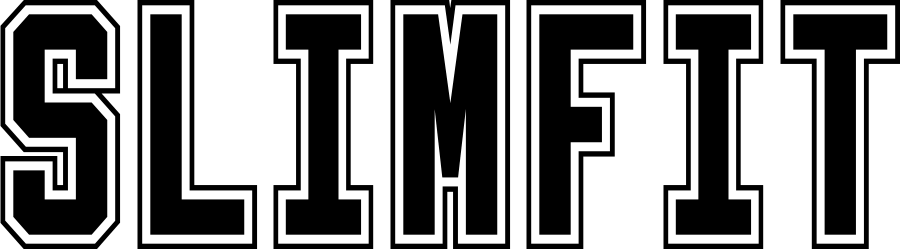
SlimFit Font
SlimFit is a typeface with three different fonts in outlined, hollow, and bold styles. This old-school font will give a retro, powerful, and untouchable look to your texts. You can use this vintage baseball font to write…
SlimFit is a typeface with three different fonts in outlined, hollow, and bold styles. This old-school font will give a retro, powerful, and untouchable look to your texts. You can use this vintage baseball font to write channel banners, school banners, comic and movie names, school game and match events, and product packaging. This one is an all-caps font.